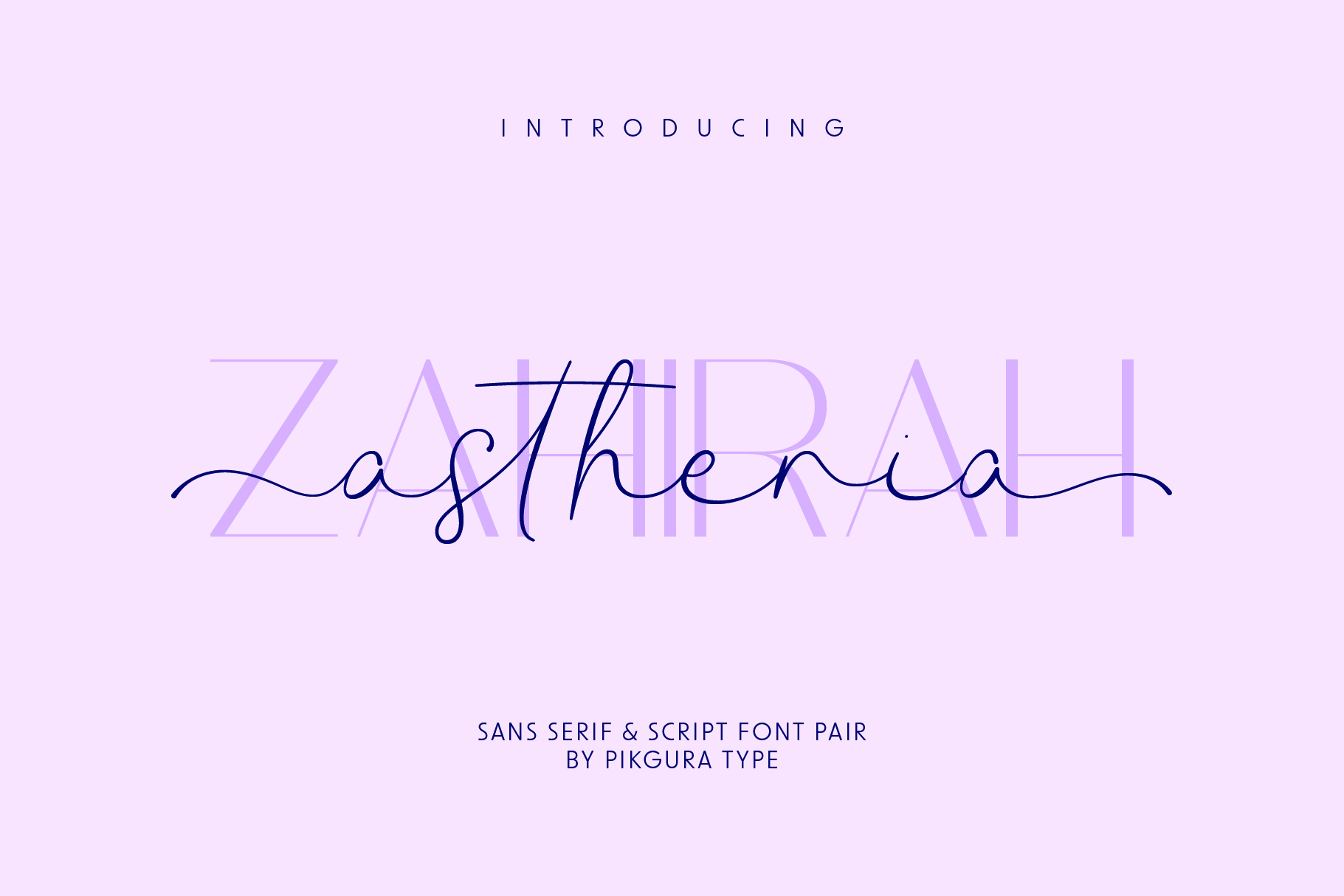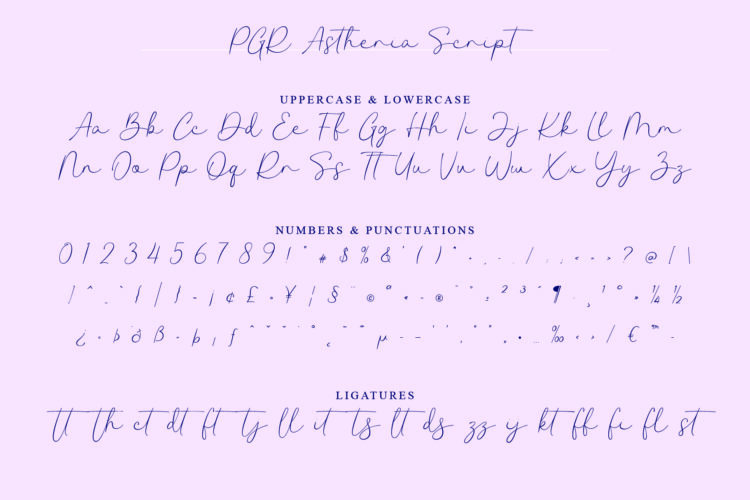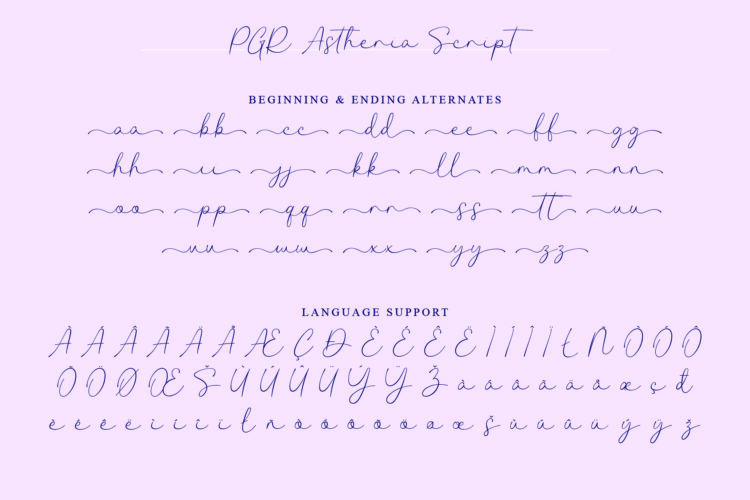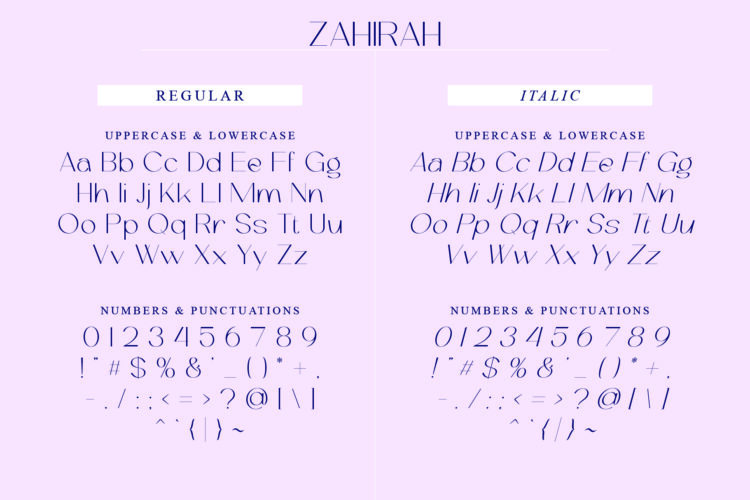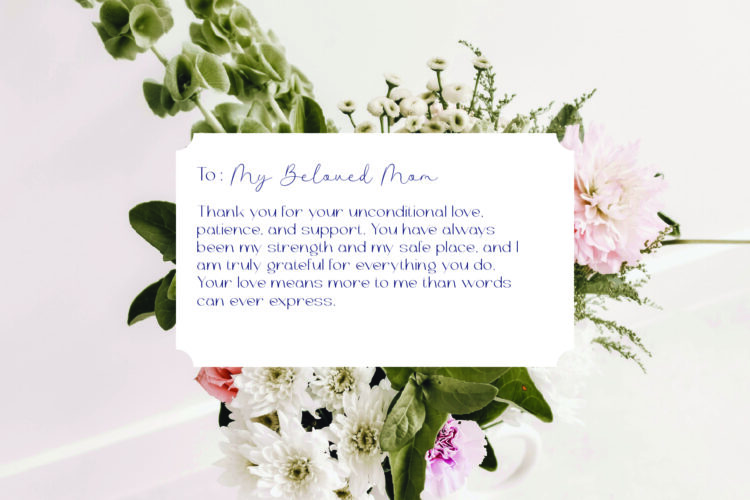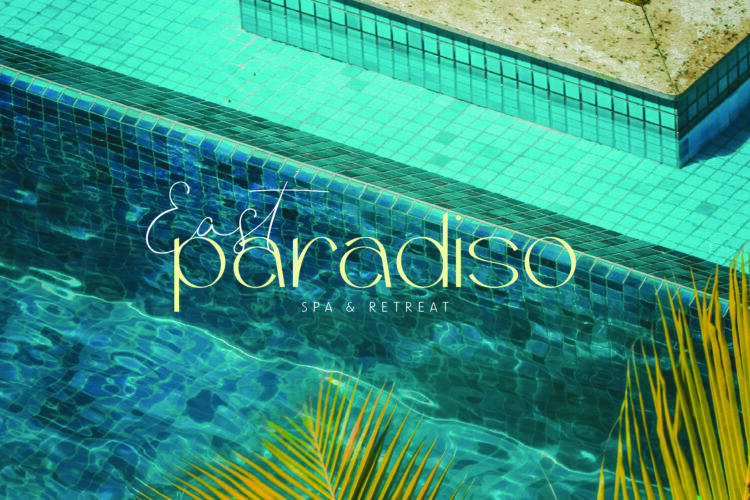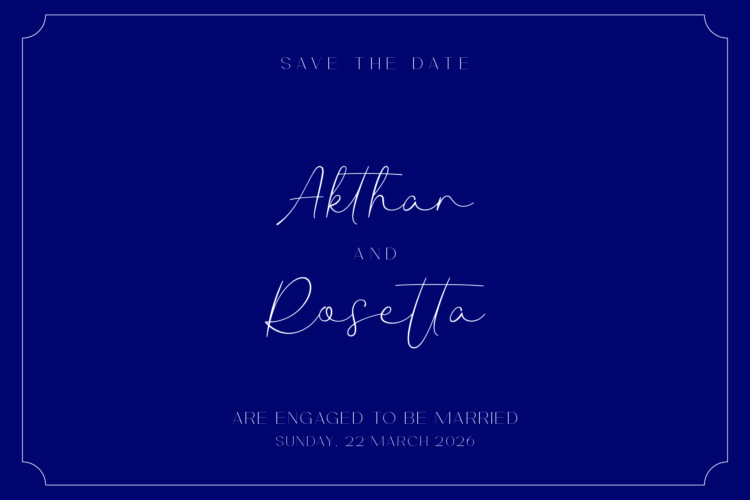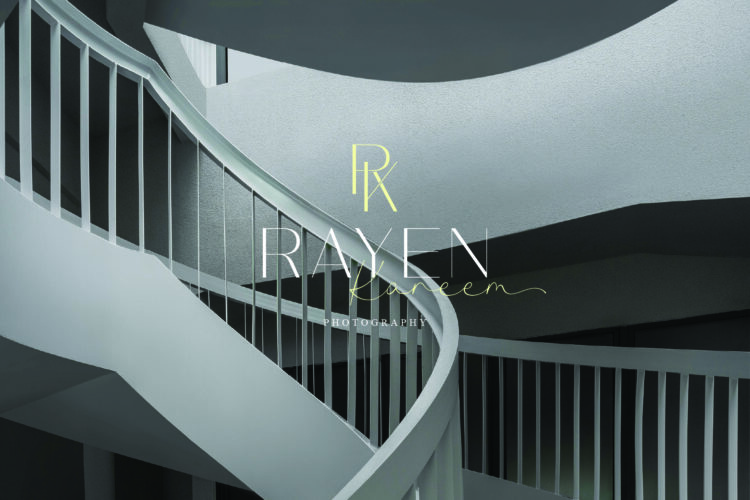
Zahirah & Astheria is a font pair for designs that feel soft, intimate, and intentional. Clean lines meet flowing curves. Minimal form meets quiet romance. Nothing loud. Nothing forced. Just beauty that stays.
✨ Zahirah sets the mood.
A thin, minimalist sans serif with a feminine soul. Light. Clean. Calm. It includes a full alphabet, numbers, basic symbols, and a matching italic. Zahirah gives your layout space to breathe and lets elegance speak without effort.
✨ Astheria adds the emotion.
An elegant script with natural flow and romantic detail. It comes with a full alphabet, numbers, basic symbols, ligatures, and alternate lowercase letters for graceful beginnings and endings. With language support included, Astheria brings warmth, movement, and feeling to every word.
Together, Zahirah & Astheria feel like a whisper instead of a shout. Perfect for weddings, love stories, beauty brands, editorial design, and anything meant to feel personal, soft, and timeless. You will receive OTF, TTF, and WOFF files, ready for print, digital, and web use.